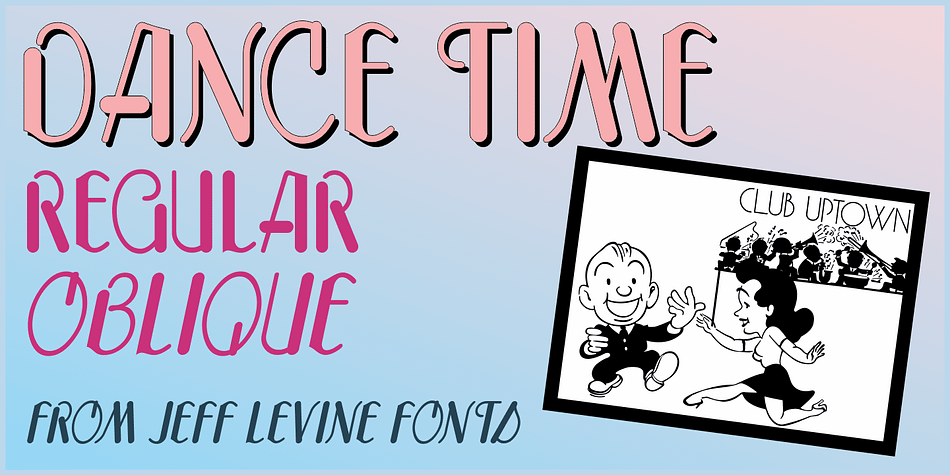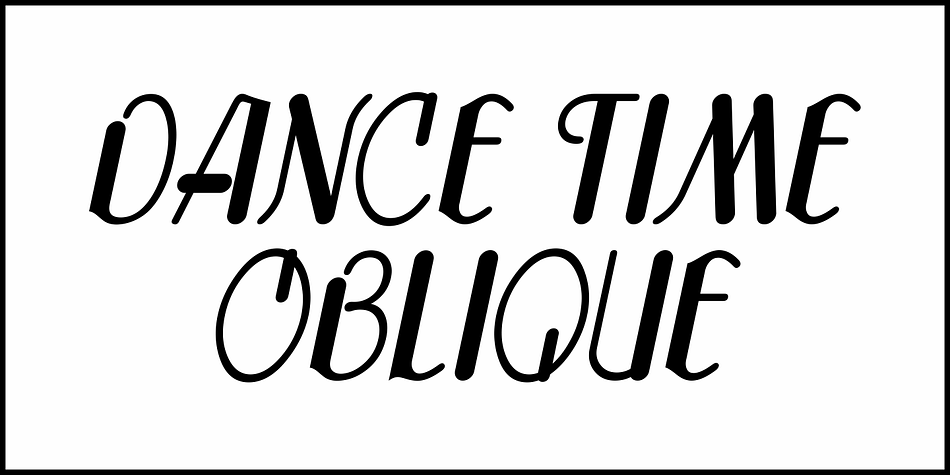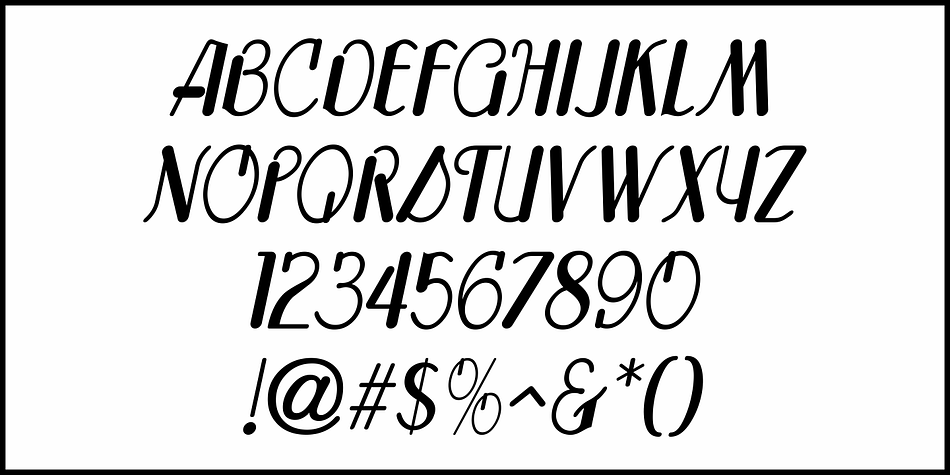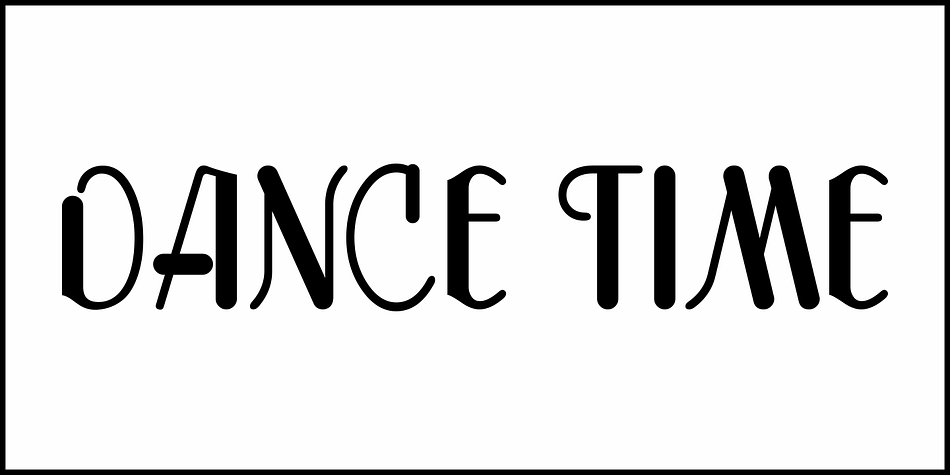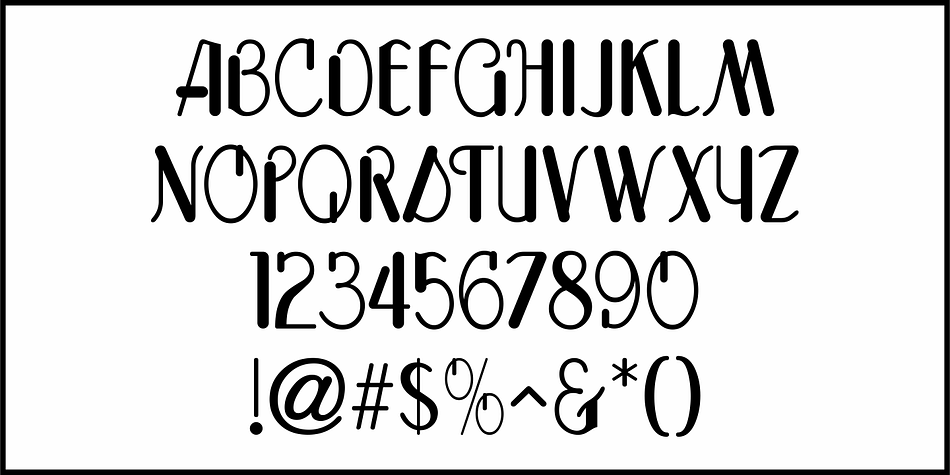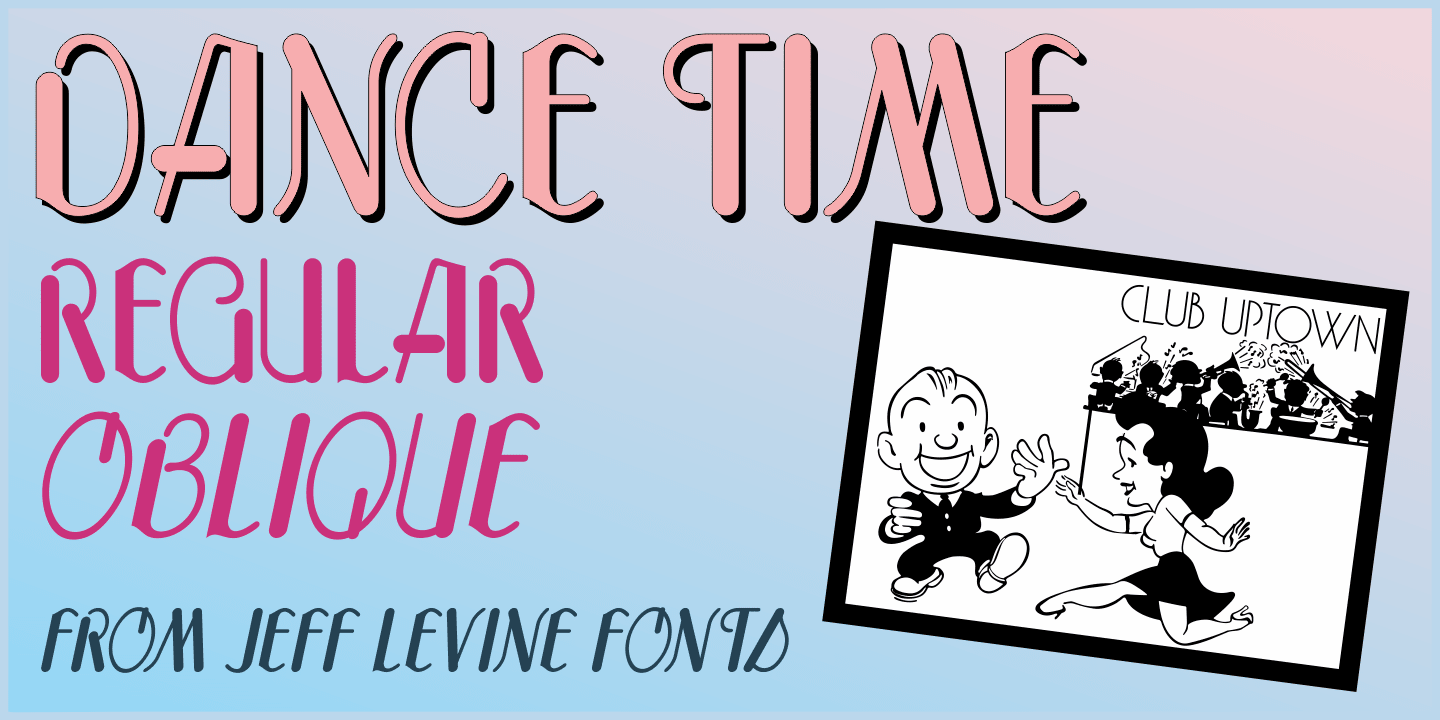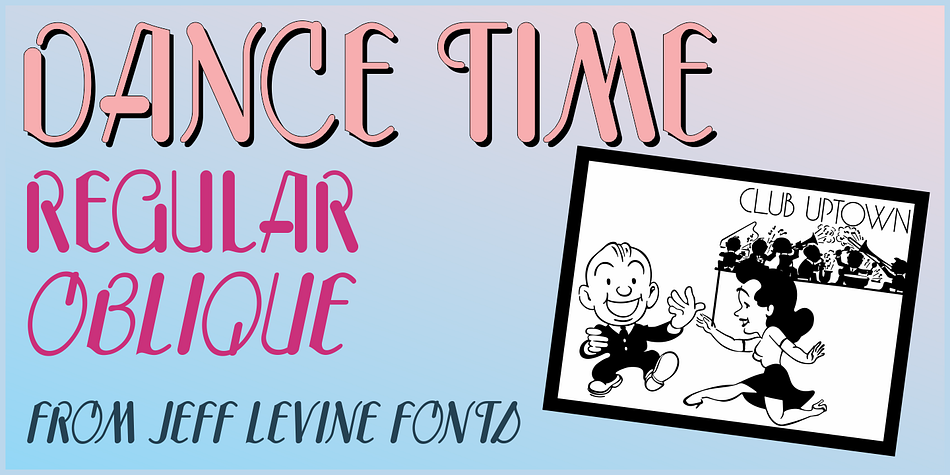
DANCE TIME JNL
Designed by Jeff Levine, Dance Time JNL is an art deco and display sans font family. This typeface has two styles and was published by Jeff Levine Fonts.
The words “Benny Goodman & His Orchestra” on an appearance poster for the band from 1936 were rendered in a beautiful semi-script style of hand lettering.
This unusual Art Deco design is now available as Dance Time JNL in both regular and oblique versions.